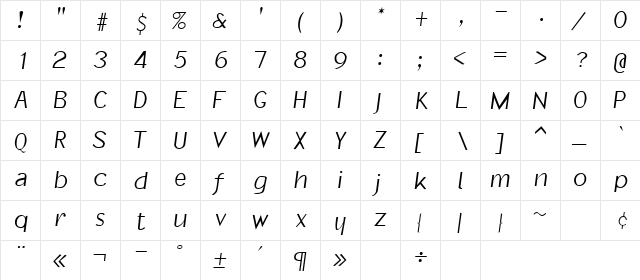
Informal Italic Font Preview
Informal Italic
Informal Italic Font Details
Design Context for Informal Typeface
Informal is a composed and adaptable typeface that performs quietly and consistently across a wide range of design contexts. Its italic angle brings a sense of urgency and motion to the letterforms.
Pro Tip: Try Informal for annotation and caption copy alongside an upright companion — the contrast in angle creates a dynamic but ordered typographic system.